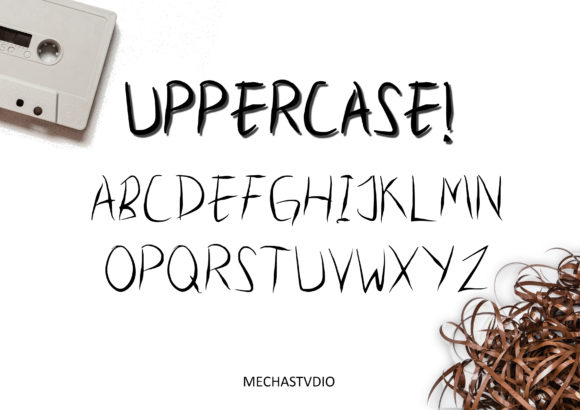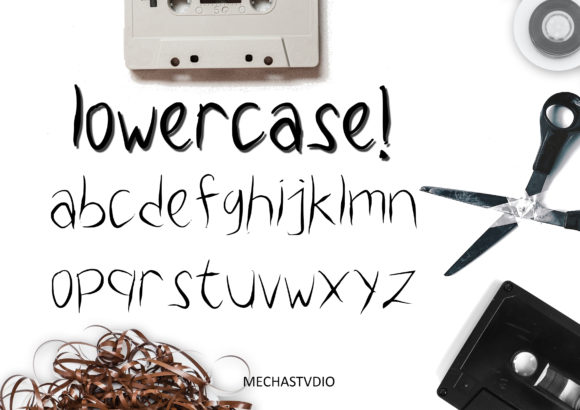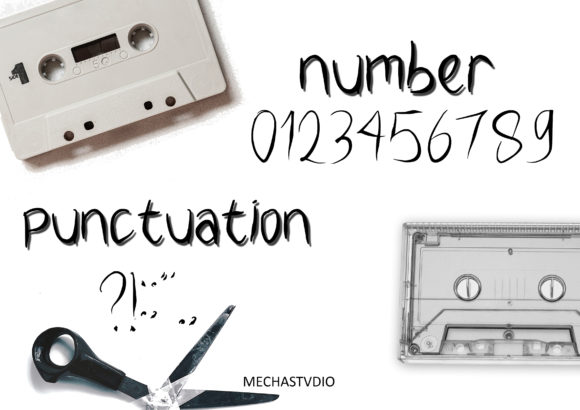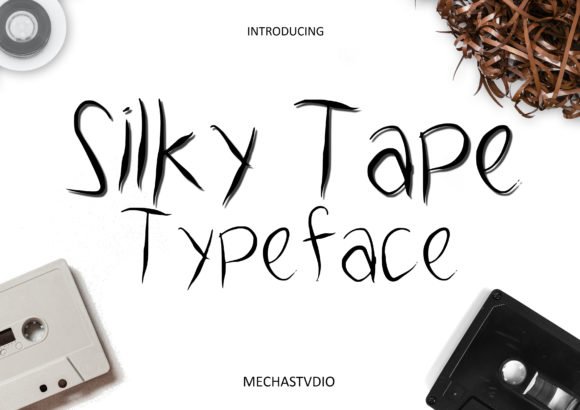
Introduction to Silky Tape Signature Font
Silky Tape Signature is a condensed font style.
It features fun characters with beautiful ligatures Add it confidently to your projects, and you will love the results.
Why Choose Silky Tape Signature Font?
Silky Tape Signature Font offers exceptional quality and versatility, making it a valuable addition to your design toolkit. Whether you’re creating for personal projects or commercial use, Silky Tape Signature Font delivers professional results.